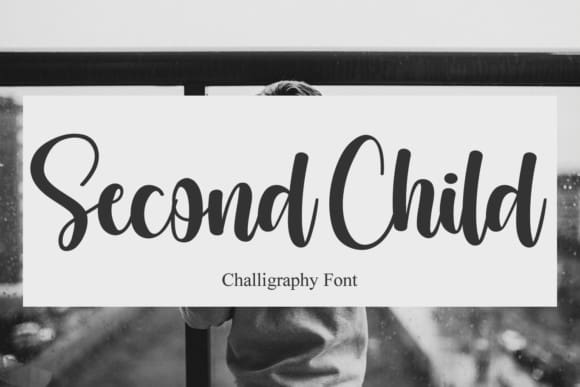
Second Child Font
Second Child Font is an exquisite handwritten font, masterfully designed to become a true favorite. It maintains its classy calligraphic influences while feeling contemporary and fresh. Fall in love with it and bring your projects to the highest levels!